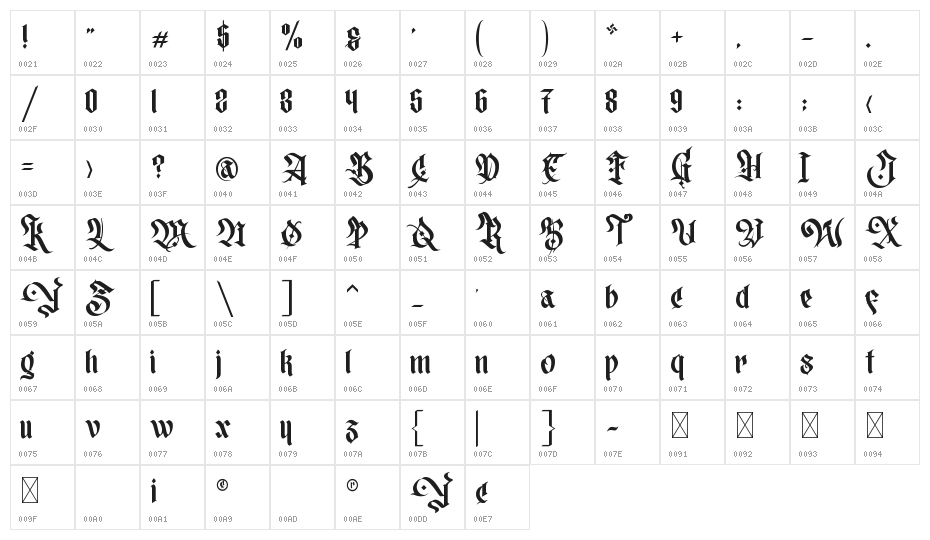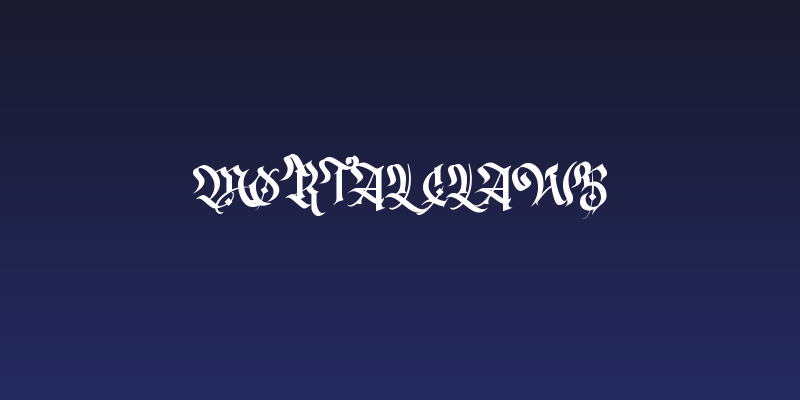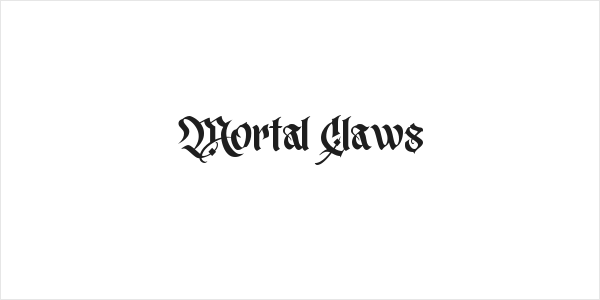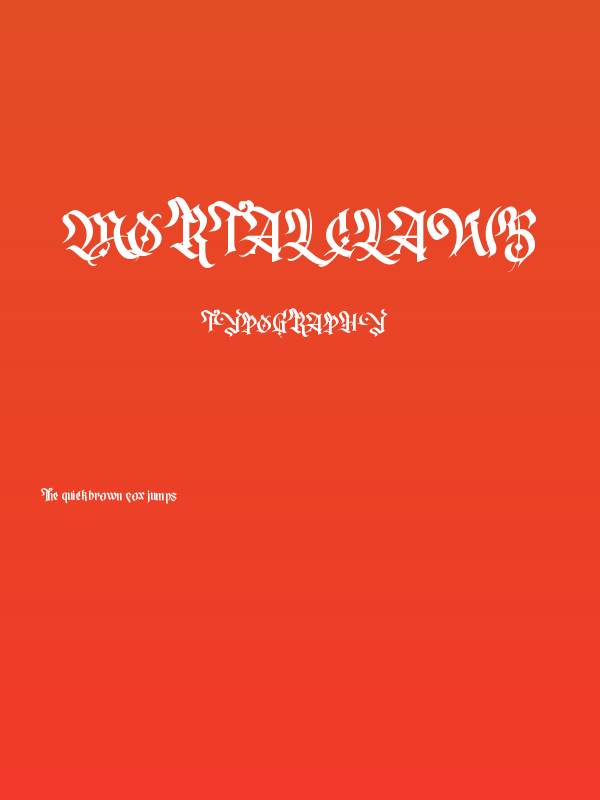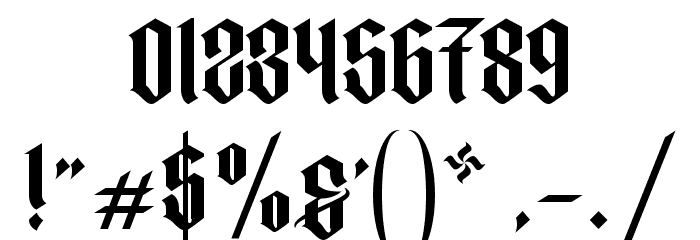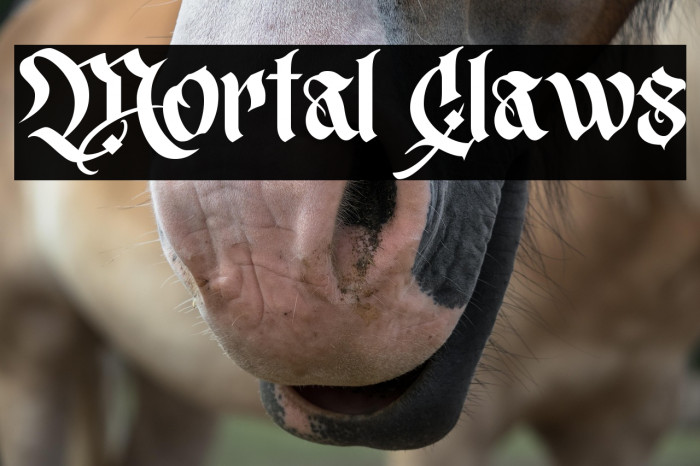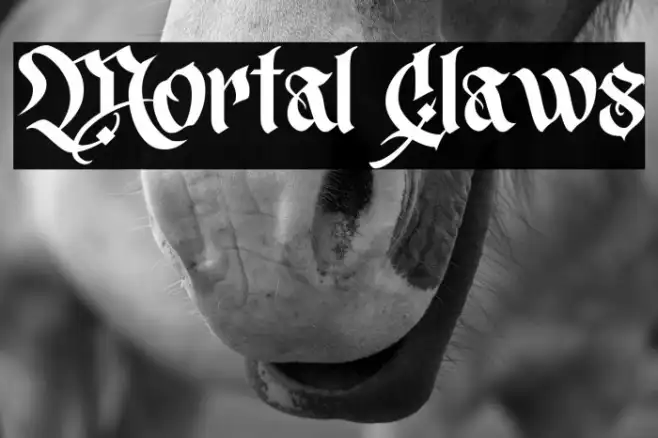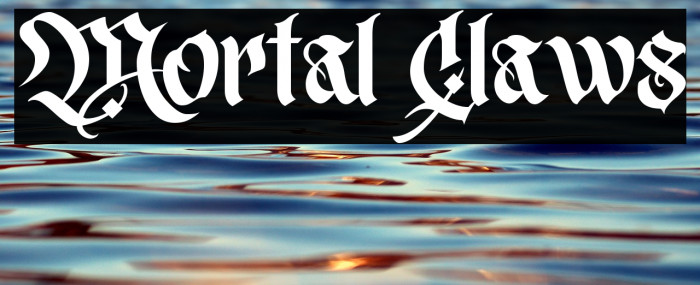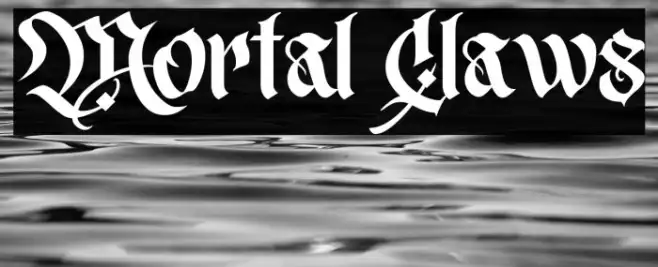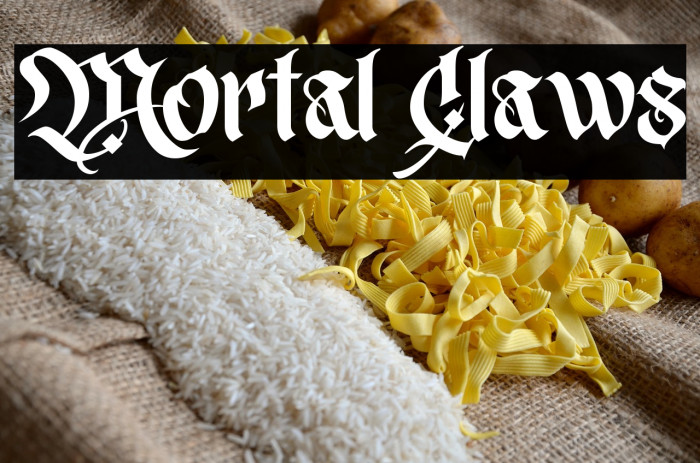
Mortal Claws Font
Mortal Claws Description
This font exhibits a bold and intricate design, reminiscent of traditional Blackletter styles. The uppercase letters are ornate, with sharp, angular lines and elaborate flourishes that give a sense of historical elegance. The lowercase letters maintain a similar aesthetic, though they are slightly more subdued, allowing for readability while still retaining the decorative flair. Numbers and special characters are crafted with the same attention to detail, ensuring a cohesive look across all elements. The overall appearance is striking and dramatic, making it ideal for projects that require a touch of medieval or gothic influence.
| Overall Style | Decorative, Gothic |
| Proposed Projects | Ideal for use in tattoo designs, gothic-themed posters, book covers, and branding that requires a medieval or historical touch. |